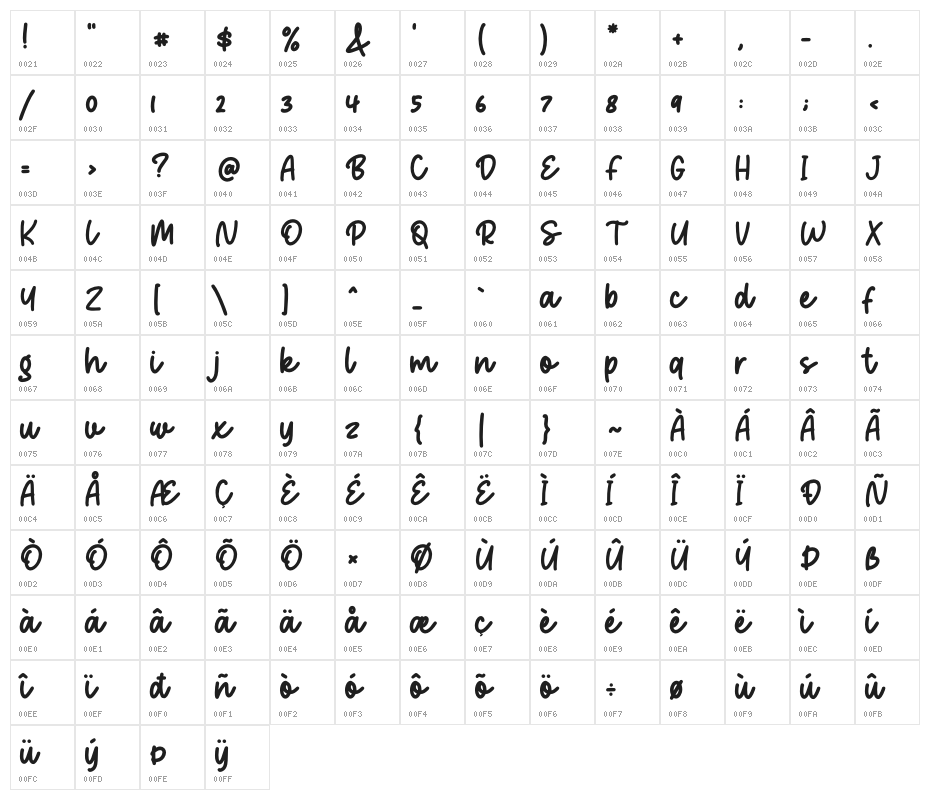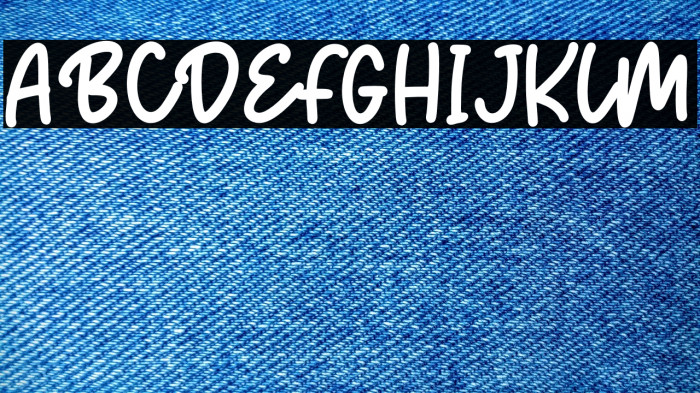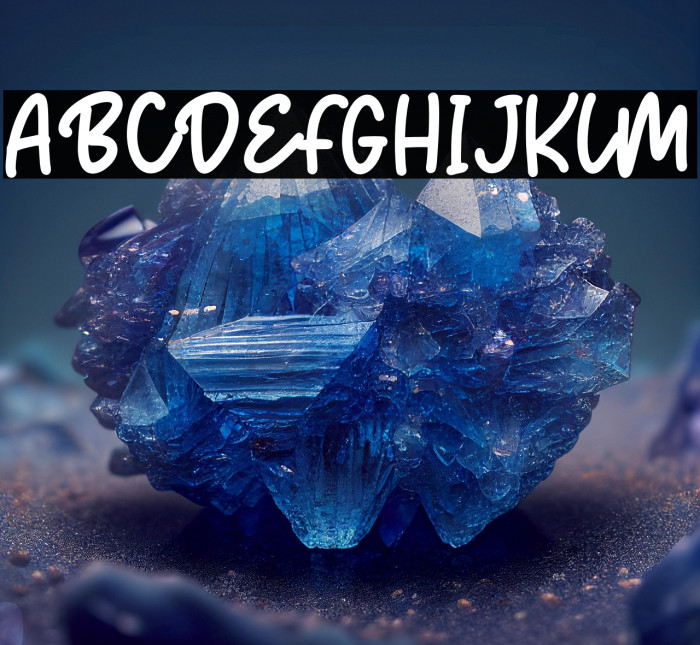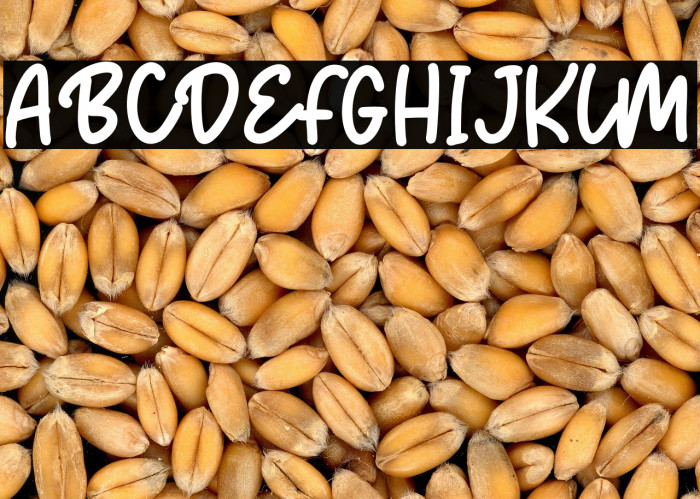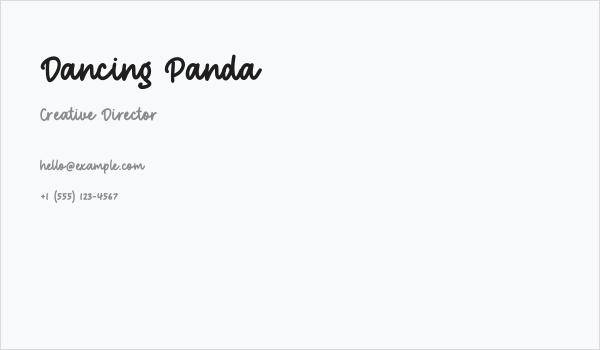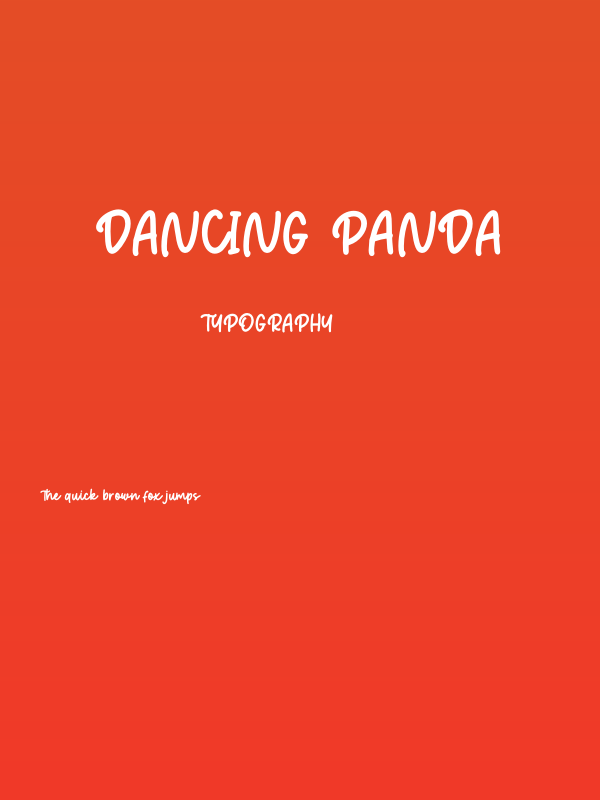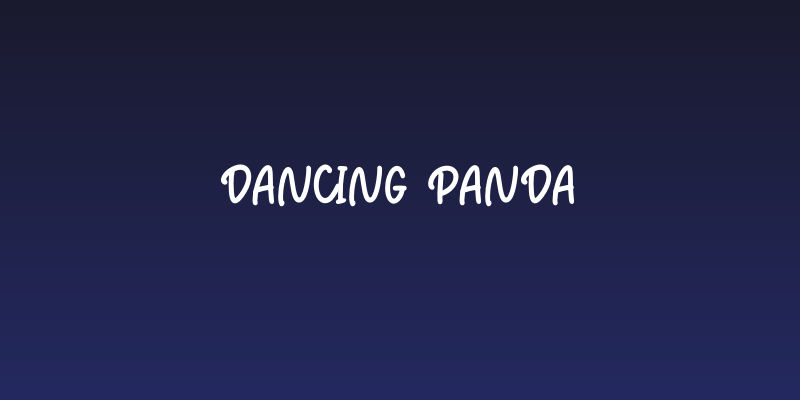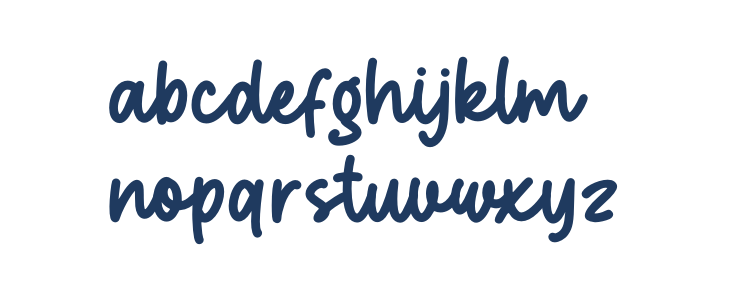
Dancing Panda Font
Dancing Panda Description
This playful and energetic font features a handwritten style with bold and smooth strokes, creating a lively and informal appearance. The uppercase and lowercase letters are well-balanced, with a consistent flow that mimics natural handwriting. The numbers and special characters maintain the same playful aesthetic, making the font versatile for various creative projects. Its boldness ensures readability while adding a touch of personality and charm.
| Overall Style | Playful |
| Use Case | Logos, Headlines, Posters |
| Proposed Projects | Ideal for greeting cards, playful branding, children's books, and social media graphics. |